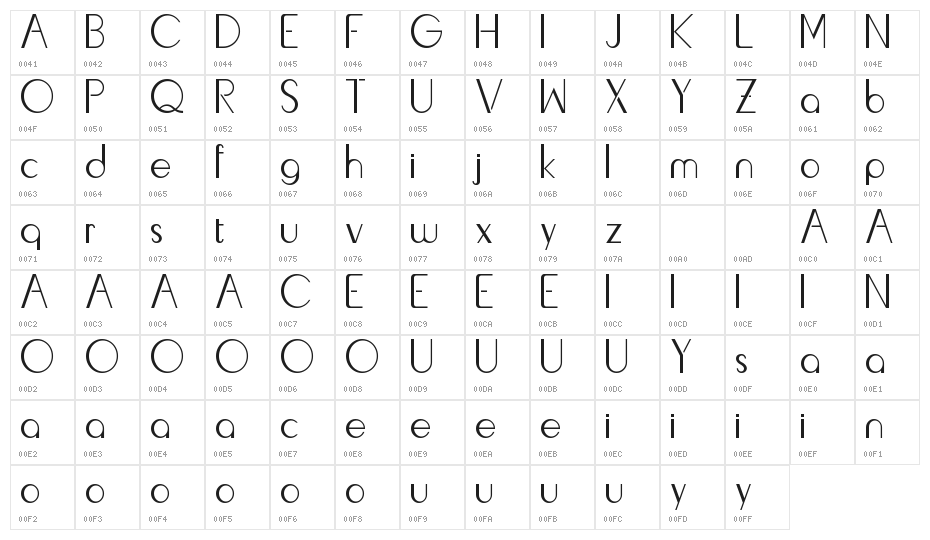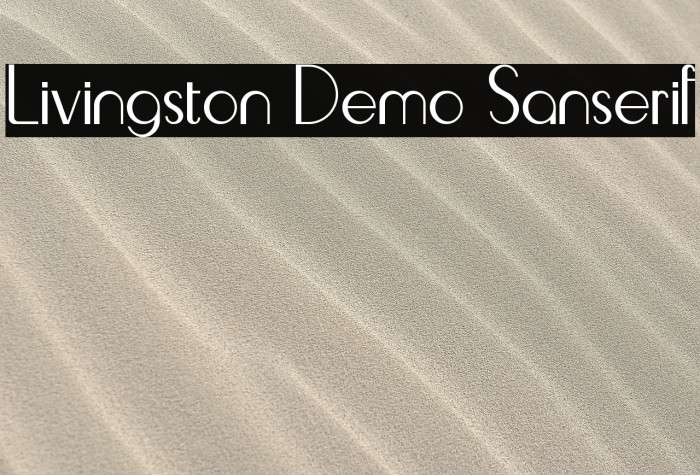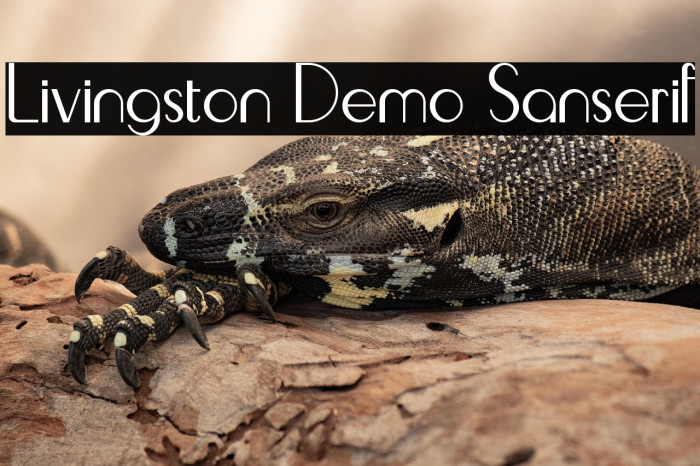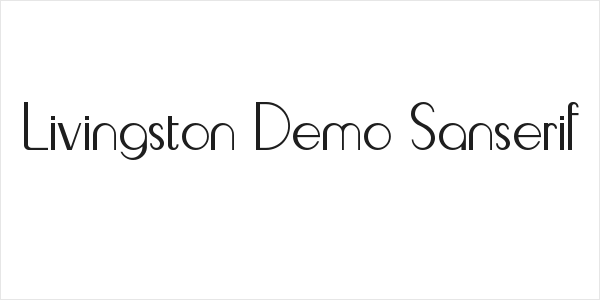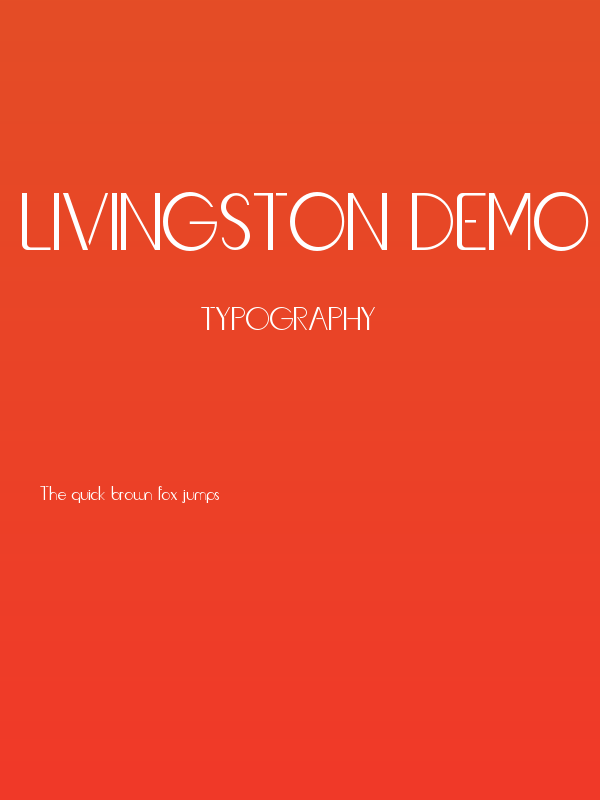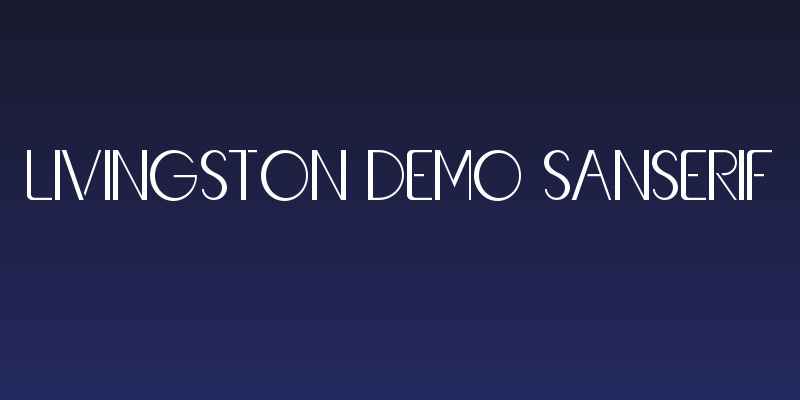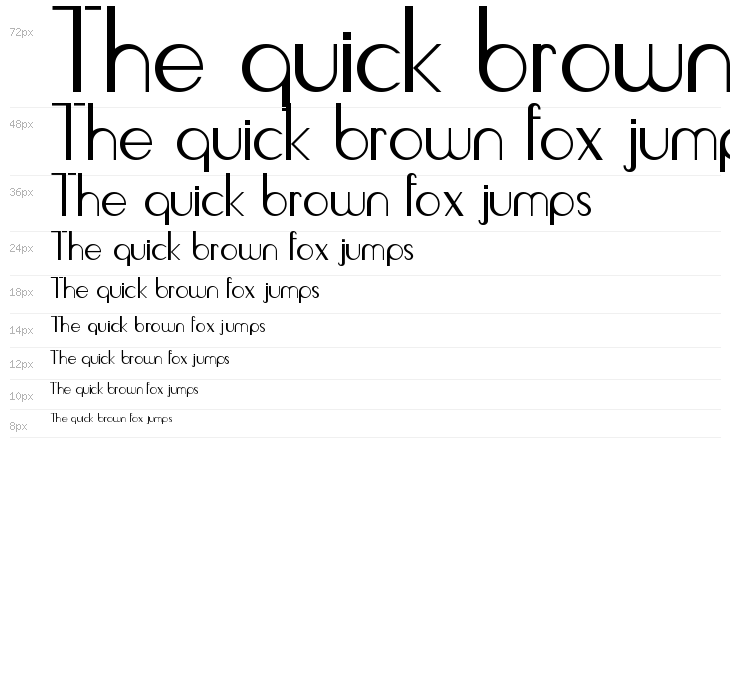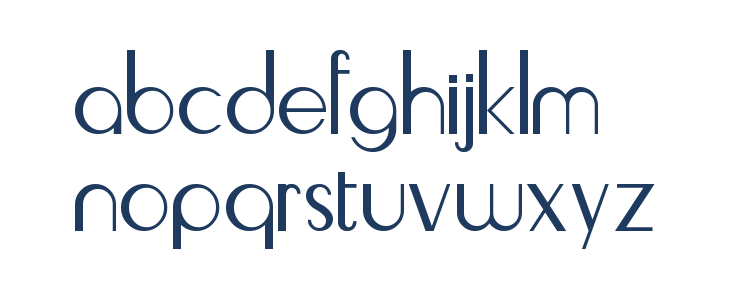
Livingston Demo Sanserif Font
Livingston Demo Sanserif Description
This font features a clean and modern sans-serif style with a geometric influence. The uppercase letters are tall and elegant, with a consistent stroke width that gives them a sleek appearance. The lowercase letters maintain a similar geometric style, with rounded edges that add a touch of softness to the overall design. The numbers are clear and easy to read, making them suitable for various applications. Special characters are included, matching the overall aesthetic with a modern twist. The font's simplicity and clarity make it versatile for both digital and print media.
| Proposed Projects | Ideal for branding, advertising, web design, and editorial layouts due to its modern and clean aesthetic. |